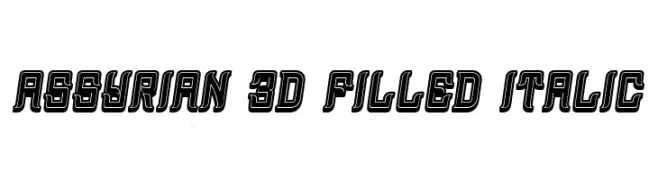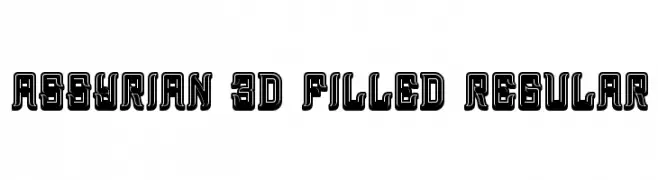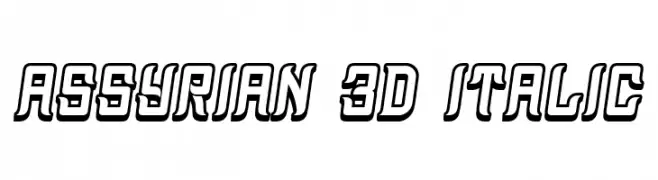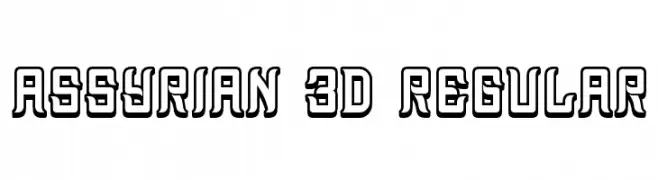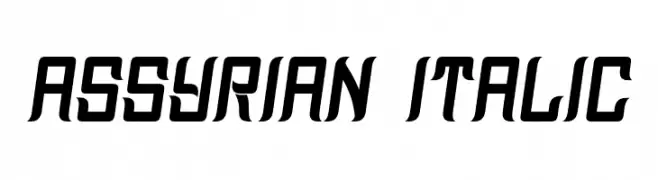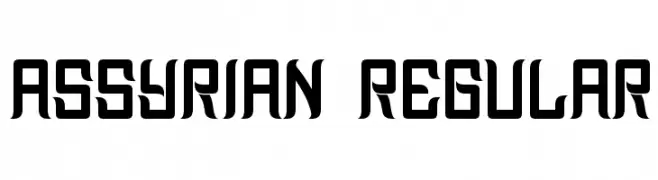
( Vladimir Nikolic - www.coroflot.com/vladimirnikolic )
A bold, 3D italic font with a filled style and shadow effect for dynamic designs.
( Vladimir Nikolic - www.coroflot.com/vladimirnikolic )
A bold, 3D filled marquee font with an italic slant, ideal for decorative and eye-catching designs.
( Vladimir Nikolic - www.coroflot.com/vladimirnikolic )
A bold, 3D decorative font with a marquee style, ideal for vibrant and lively designs.
( Vladimir Nikolic - www.coroflot.com/vladimirnikolic )
A bold, 3D font with a vintage casino style and filled interior.
( Vladimir Nikolic - www.coroflot.com/vladimirnikolic )
A bold, 3D italic font with a dynamic and modern style.
( Vladimir Nikolic - www.coroflot.com/vladimirnikolic )
A bold, 3D italic font with textured lines and a vintage casino vibe.
( Vladimir Nikolic - www.coroflot.com/vladimirnikolic )
A bold, 3D italic font with intricate line patterns and a marquee light style.
( Vladimir Nikolic - www.coroflot.com/vladimirnikolic )
A bold, decorative font with a 3D marquee effect and intricate line patterns.
( Vladimir Nikolic - www.coroflot.com/vladimirnikolic )
A bold, 3D decorative font with a striped pattern and strong visual impact.
( Vladimir Nikolic - www.coroflot.com/vladimirnikolic )
A bold, 3D marquee-style font with an italic slant and decorative bulb patterns.
( Vladimir Nikolic - www.coroflot.com/vladimirnikolic )
A bold, 3D marquee font with decorative bulb embellishments.
( Vladimir Nikolic - www.coroflot.com/vladimirnikolic )
A bold, 3D decorative font with a classic casino style.
( Vladimir Nikolic - www.coroflot.com/vladimirnikolic )
A bold, italic font with a dynamic and energetic style.
( Vladimir Nikolic - www.coroflot.com/vladimirnikolic )
A bold, geometric font with a modern and striking design.
( Vladimir Nikolic - www.coroflot.com/vladimirnikolic )
Bold, italicized font with a flat shadow effect for dynamic designs.
( Vladimir Nikolic - www.coroflot.com/vladimirnikolic )
Bold, shadowed font with a classic casino style.
( Vladimir Nikolic - www.coroflot.com/vladimirnikolic )
A bold, decorative italic font with a dotted pattern, ideal for playful and eye-catching designs.
( Vladimir Nikolic - www.coroflot.com/vladimirnikolic )
A bold, decorative font with an italic slant and dotted shadow effect.
( Vladimir Nikolic - www.coroflot.com/vladimirnikolic )
A bold, decorative font with a shadow effect and dotted outlines, ideal for vintage-themed designs.
( Rometheme - Yahdi Kumala - creativemarket.com/Rometheme?u=Rometheme )
A futuristic, angular font with sharp edges and a dynamic slant.
( Peter Olexa - www.dealjumbo.com )
A grunge-style font with an inline design and decorative serifs, offering a vintage and textured appearance.
( Walter Paggioro - www.raptuscreativi.com/site/fields/type-design/ )
A playful, dotted font with a unique, decorative style.
( Vladimir Nikolic - www.coroflot.com/vladimirnikolic )
A whimsical font with letters designed as cat and dog faces, perfect for playful projects.
( Syahputra - creativemarket.com/Bexxtype )
An elegant and flowing script font with intricate loops and swashes.
( Pizzadude - Jakob Fischer - www.pizzadude.dk/ )
A playful, hand-drawn font with a quirky and artistic style.
( Sabrina Schleiger - www.sabrinaschleiger.com )
A playful, hand-drawn font with outlined characters and a whimsical style.
( Vladimir Nikolic - www.coroflot.com/vladimirnikolic )
A bold, 3D italic font with a dotted pattern and shadow effect.
( Vladimir Nikolic - www.coroflot.com/vladimirnikolic )
A bold, 3D font with a dotted pattern and geometric structure.
( Vladimir Nikolic - www.coroflot.com/vladimirnikolic )
A bold, 3D neon-style italic font with a retro vibe.
( Vladimir Nikolic - www.coroflot.com/vladimirnikolic )
A bold, 3D neon-style font with layered outlines for a striking effect.
( Vladimir Nikolic - www.coroflot.com/vladimirnikolic )
A bold, 3D italic font with a modern, dynamic look.
( Vladimir Nikolic - www.coroflot.com/vladimirnikolic )
A bold, 3D-style font with outlined characters and a modern, playful look.
( Vladimir Nikolic - www.coroflot.com/vladimirnikolic )
A bold, italicized font with a dynamic and energetic style.
( Vladimir Nikolic - www.coroflot.com/vladimirnikolic )
A bold, geometric font with uniform thickness and a modern retro vibe.
( Vladimir Nikolic - www.coroflot.com/vladimirnikolic )
A bold, decorative font with a dotted pattern, reminiscent of marquee lights.